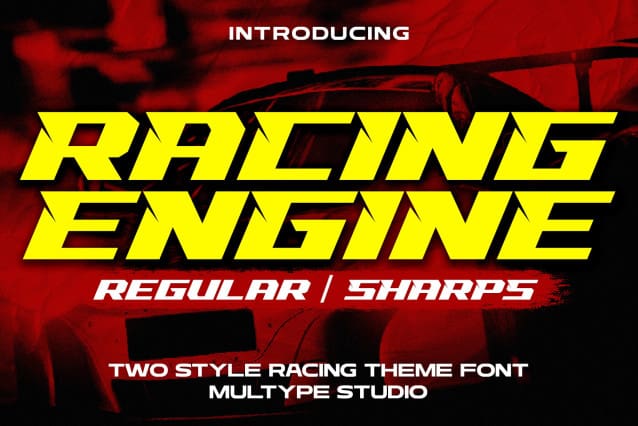
Racing Engine Font
Racing Engine Font is a font with a racing theme that has two styles. Sharps Version: The slant and precise cut shapes make this font stand out clearly and make it look strong and fast.
Very suitable for racing, automotive, sports racing projects, and racing logo projects, racing brand branding and other projects.
Clean Version: Same as the sharps version, but there is no cut shape.
But this type looks fast and strong too.
Racing Engine it’s perfect for logotype racing product, racing game covers, sports events, automotive posters, automotive magazine covers, branding, product design, labels and other creative project.